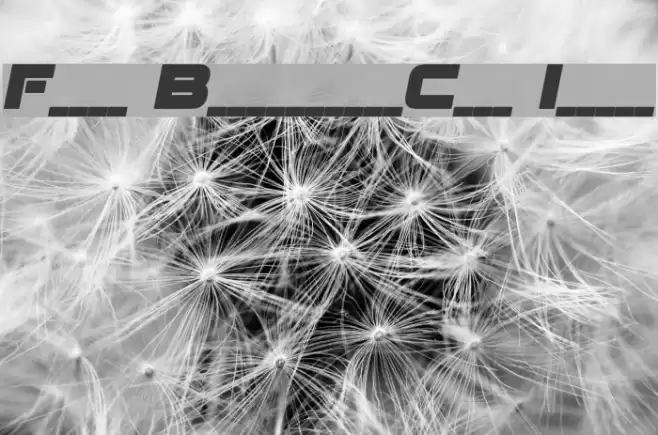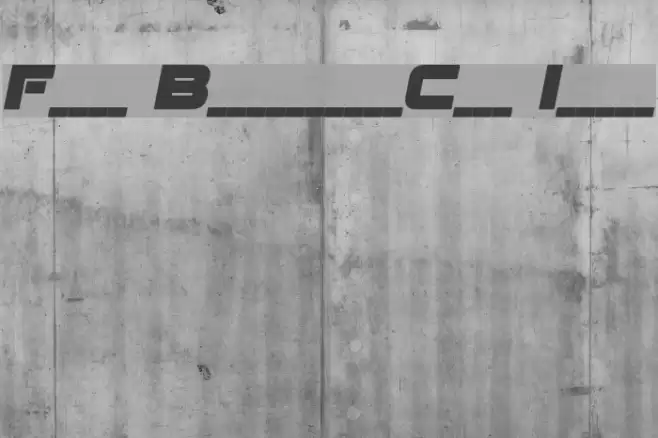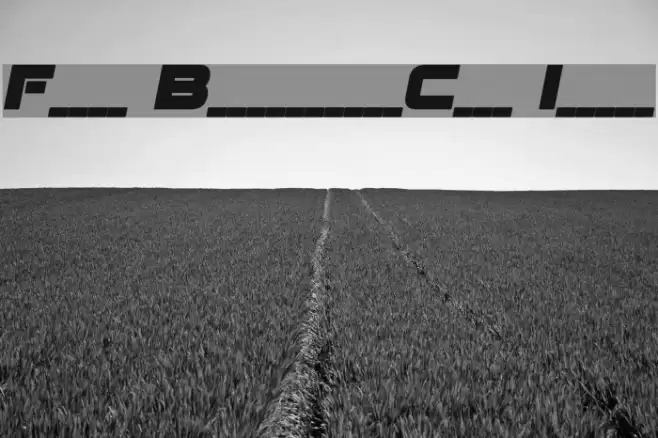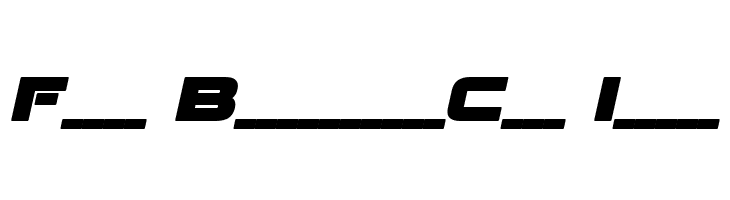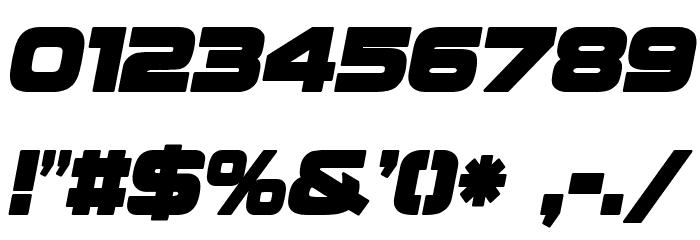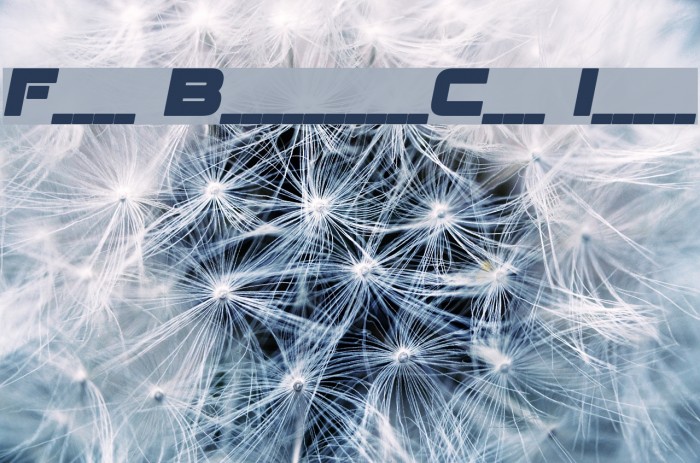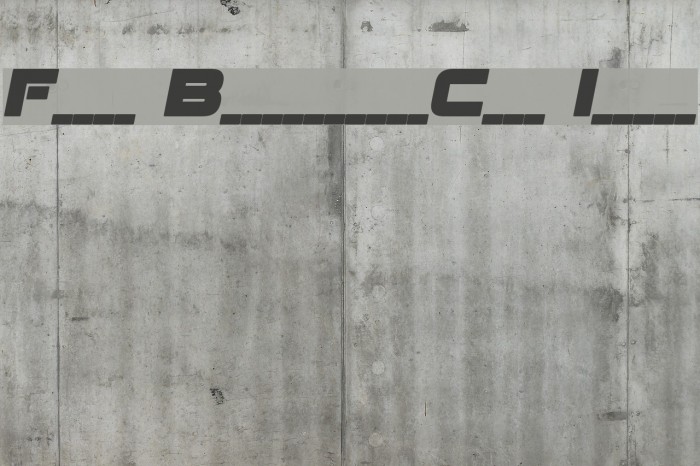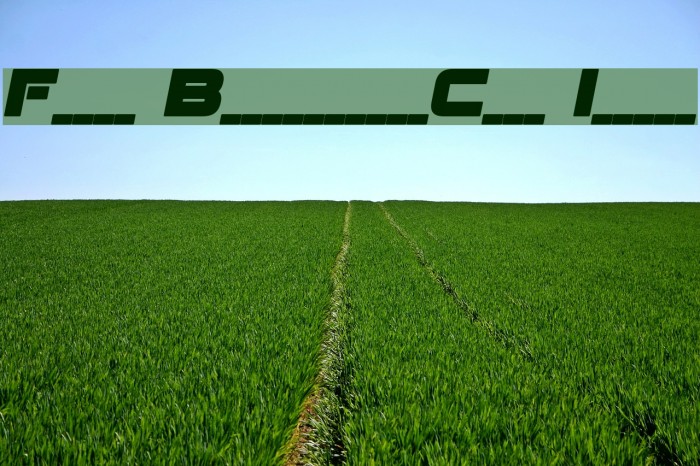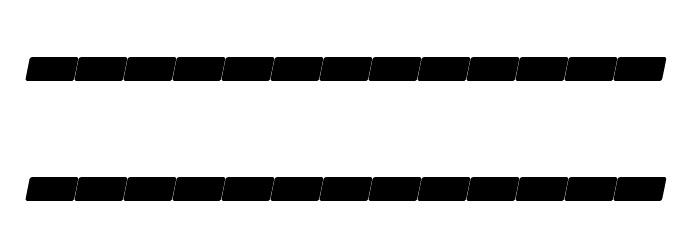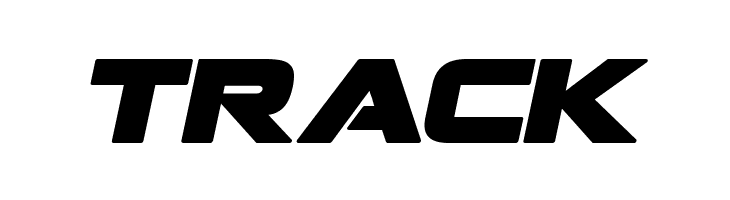
Fenix BlackletterCaps Italic Font
Fenix BlackletterCaps Italic Description
This font features a bold and italicized style with a modern, dynamic appearance. The characters are designed with a strong, angular structure, giving them a sense of movement and energy. The uppercase letters are prominent and impactful, making them suitable for attention-grabbing headlines. The numbers and special characters maintain the same boldness and angularity, ensuring consistency across all elements. The italic slant adds a sleek and contemporary feel, enhancing the overall aesthetic. This font is ideal for projects that require a strong visual presence and a modern touch.
Bold, italicized font with a modern, angular design from Uncategorized fonts.
- Proposed Projects: Ideal for branding, advertising, sports team logos, and dynamic headlines.
- Overall Style: Modern, Dynamic
- Use Case: Headlines, Logos, Branding